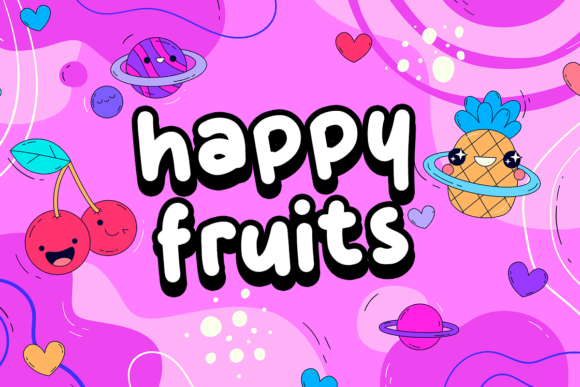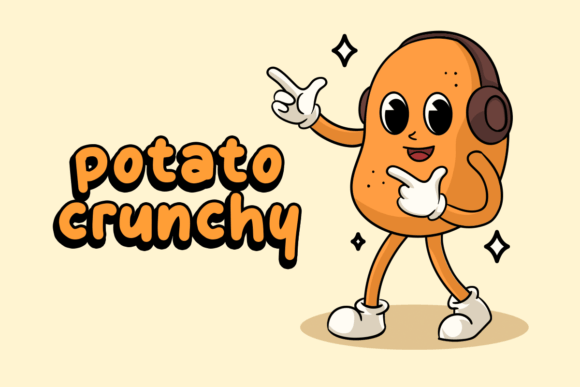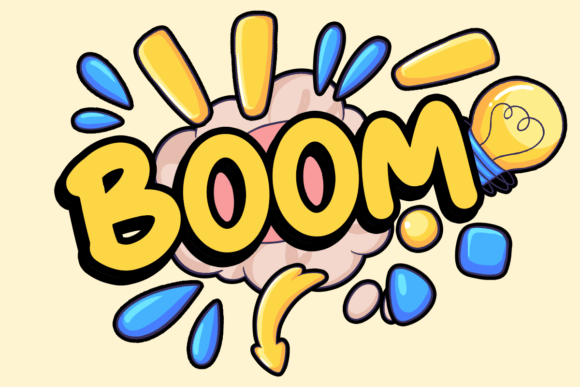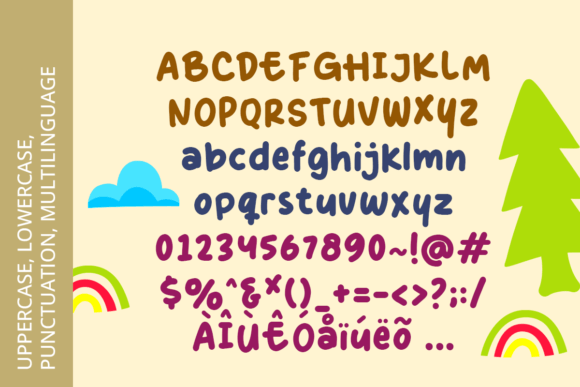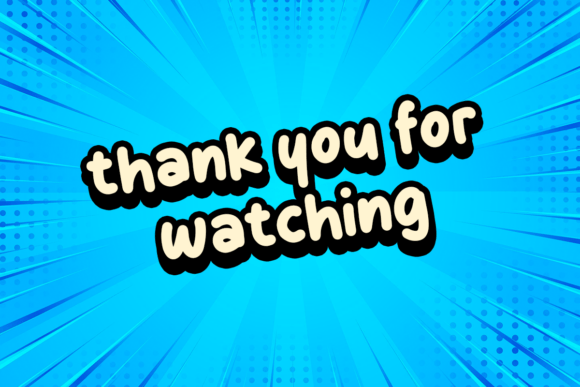
Introduction to Picko Font
Introducing Picko Display Kids Font, a fun and playful typeface designed to bring joy and creativity to children’s projects.
With its bold and bubbly letters, Picko is perfect for capturing the imagination of young audiences Ideal for children’s books, educational materials, birthday invitations, and playful branding, this font adds a cheerful and energetic vibe to any design.
Key Features of Picko Font